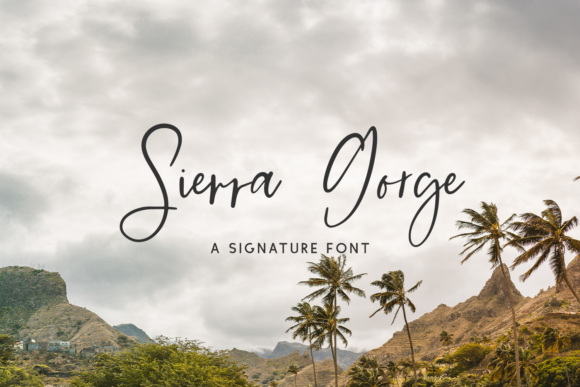
Journey into the realm of digital enchantment with the Sierra Gorge Script Font, a masterpiece crafted to awaken your creativity and captivate your audience. Its enchanting curves and playful spirit will transform your designs into captivating works of art.
Immerse yourself in a world of gaming, where the Sierra Gorge Script Font reigns supreme. Its captivating characters will transport you to fantastical realms and elevate your gaming website to new heights. Let the bold strokes and whimsical details guide you through thrilling adventures and epic battles, leaving an unforgettable mark on every pixel.
But the Sierra Gorge Script Font is not confined to the virtual realm; its versatility extends far beyond gaming. Its charming personality lends itself to a myriad of designs, from enchanting invitations to heartfelt greeting cards. Each letter flows effortlessly from the next, creating a symphony of elegance and intrigue that will captivate your audience.
With its PUA encoding, unleashing the full potential of the Sierra Gorge Script Font is a breeze. Effortlessly access a treasure trove of glyphs and swashes, empowering you to weave intricate designs and add a touch of magic to every project.
So, embark on an extraordinary typographic journey with the Sierra Gorge Script Font. Let its enchanting allure inspire your creativity, captivate your audience, and transform your digital dreams into breathtaking realities. Dive into the world of Sierra Gorge Script and let its magic paint a masterpiece with every stroke.